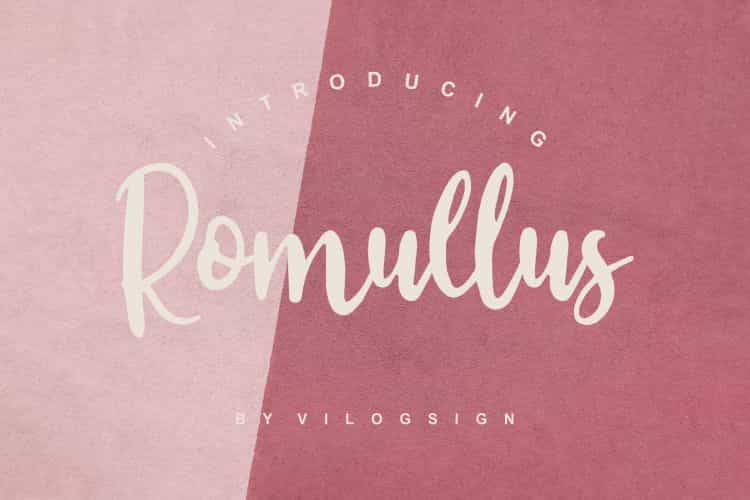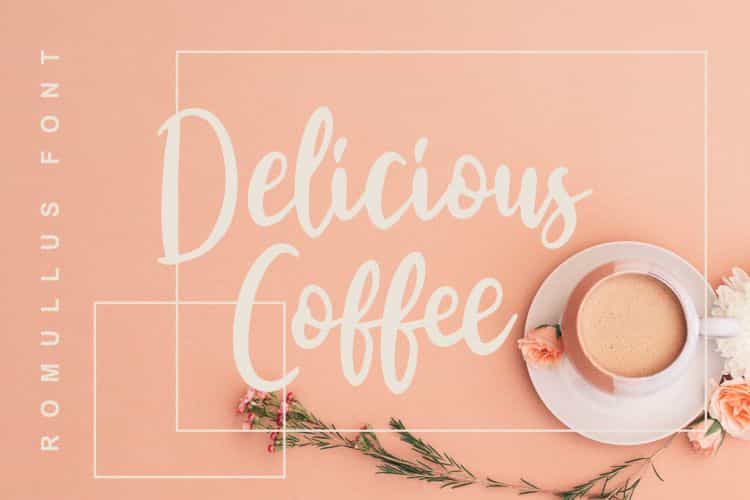
Hello everyone,,, I would like to present you my new font “Romullus” which is a playful script font. The added vector and ligature will help you to give this font a more beautiful, cheerful, elegant and natural look.